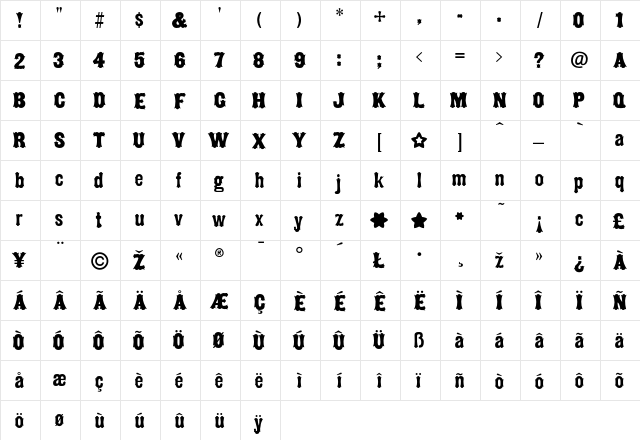
Balderdash Regular
| Foundry | Digitized by Dan X. Solo. Software Dover Publications, Inc |
Design Context for Balderdash Typeface
Balderdash is a composed and adaptable typeface that performs quietly and consistently across a wide range of design contexts.